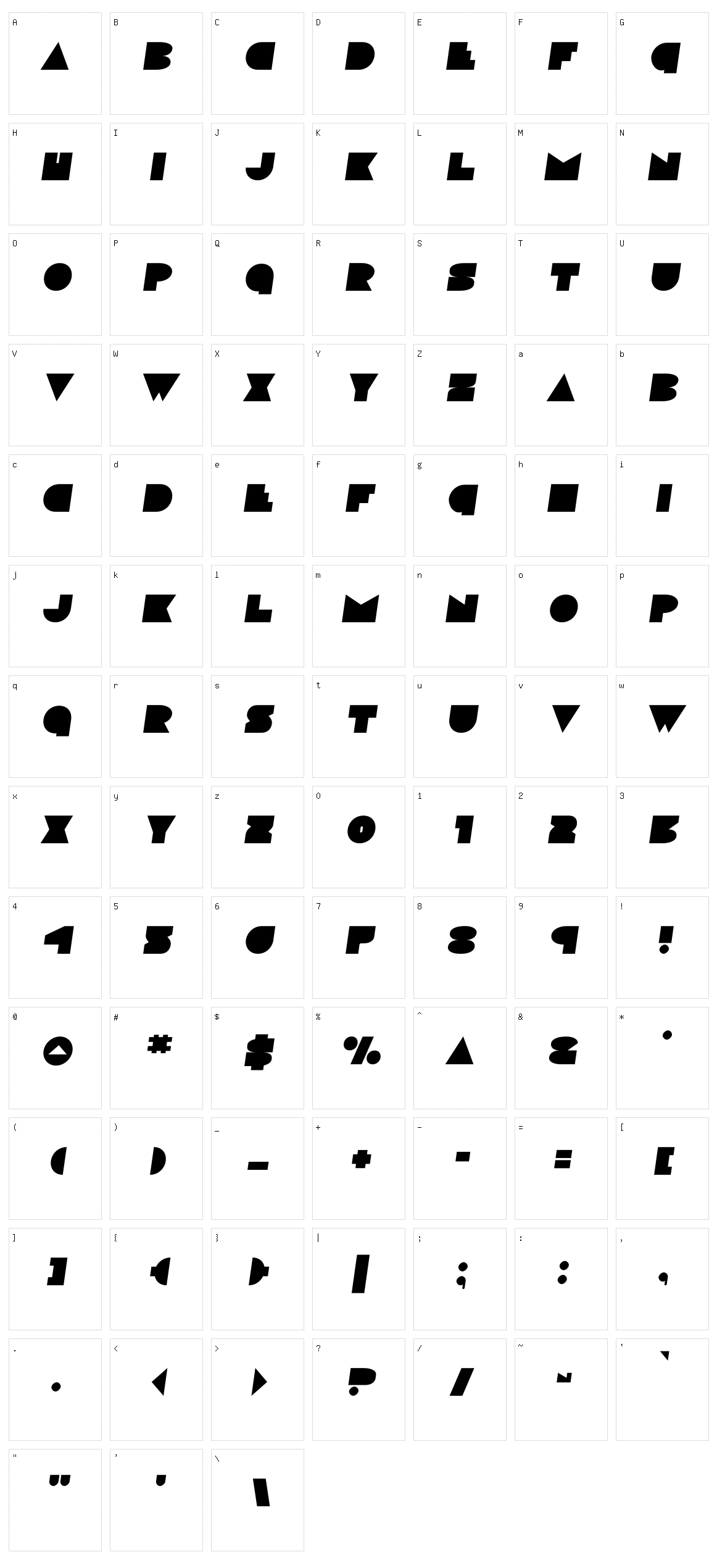
The free font Disco Deck is carefully designed by Iconian Fonts, showcasing a thoughtful balance of creativity and usability and falls under the Groovy font style. When you download the ZIP file, it contains only 809.16 KB of font files, making it lightweight and quick to download. Please review the license details below to understand permitted usage and distribution rights. If license information is not available, we recommend using this font for personal projects only or contacting the author directly for commercial usage permissions.
This font comes with the following 21 versions: Regular, Italic, Semi-Italic, Super-Italic, Leftalic, Condensed, Condensed Italic, Expanded, Expanded Italic, 3D, 3D Italic, Outline, Outline Italic, Gradient, Gradient Italic, Halftone, Halftone Italic, Laser, Laser Italic, Chrome and Chrome Italic.